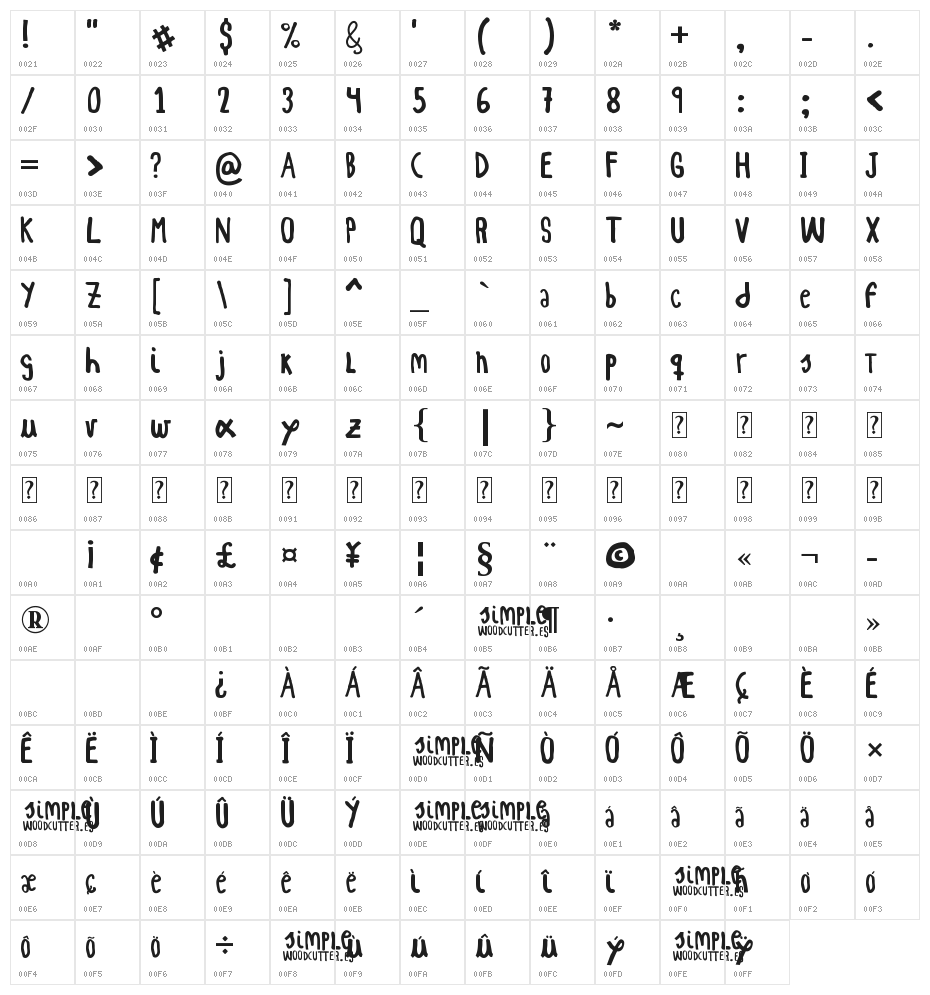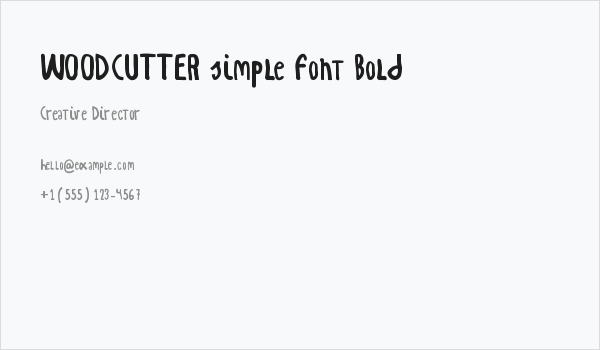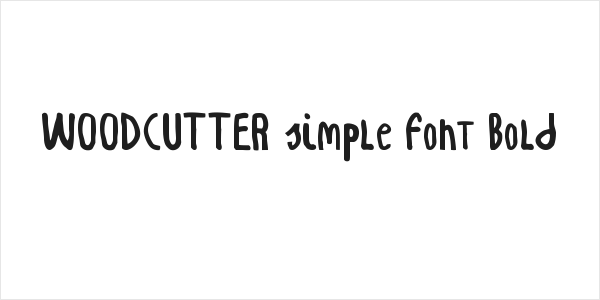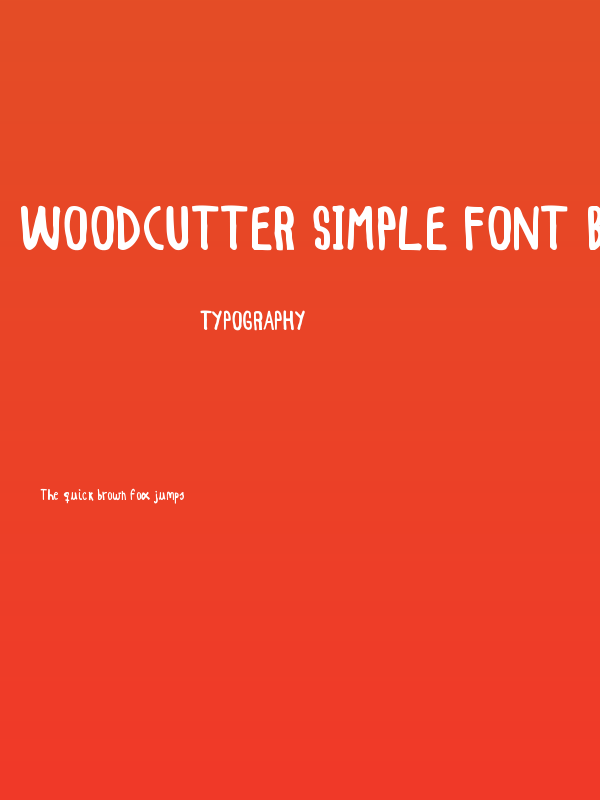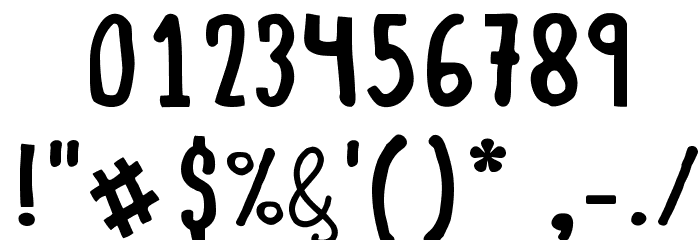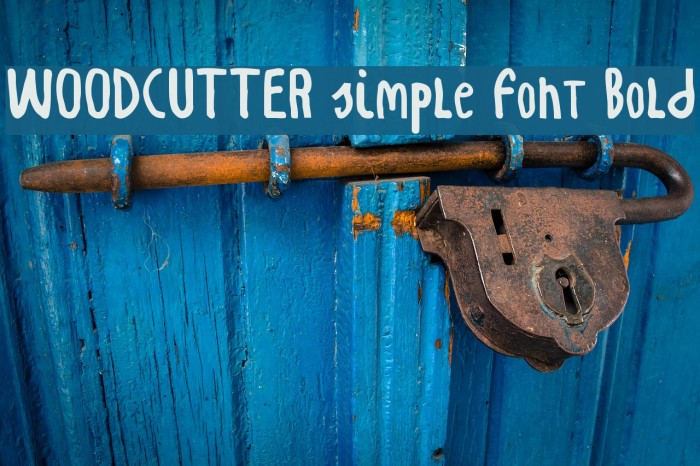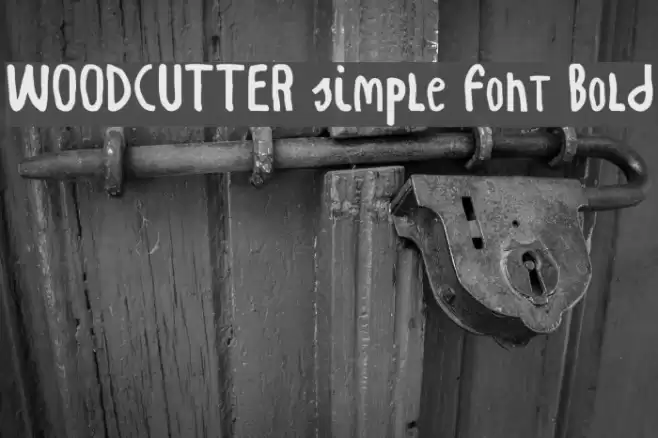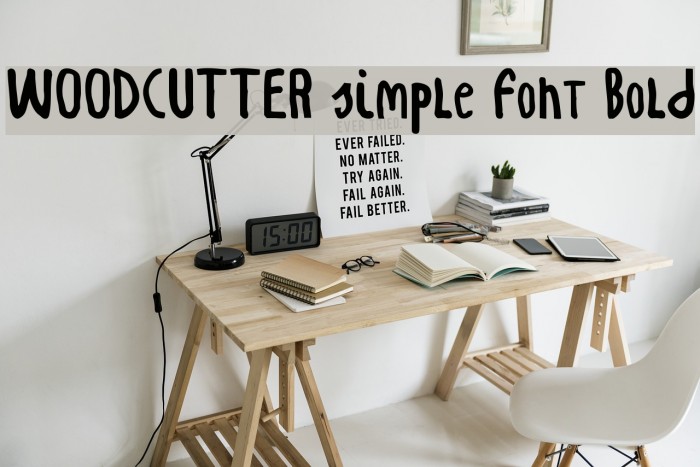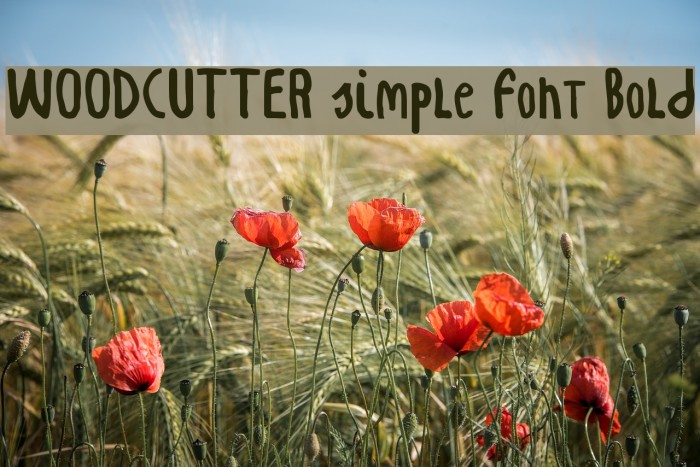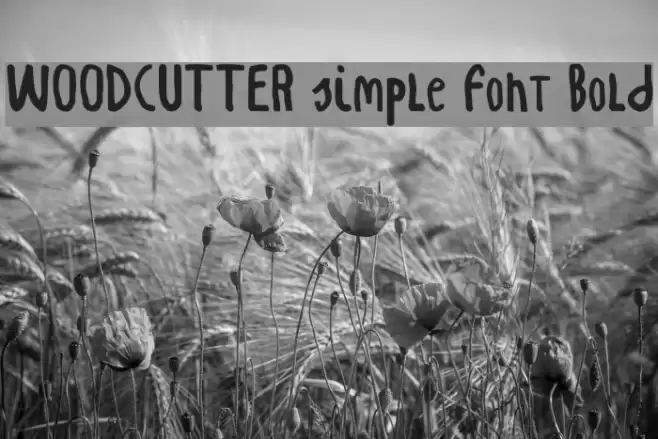
WOODCUTTER simple font Bold Font
This font features a bold and playful design with a hand-drawn aesthetic. The characters are slightly irregular, giving it a whimsical and informal feel. The uppercase and lowercase letters maintain a consistent style, with rounded edges and a slightly uneven baseline, adding to its charm. The numerals and special characters follow the same playful design, making it versatile for various creative projects. Its boldness ensures readability while maintaining a unique, artistic flair.
| Overall Style | Playful, Artistic |